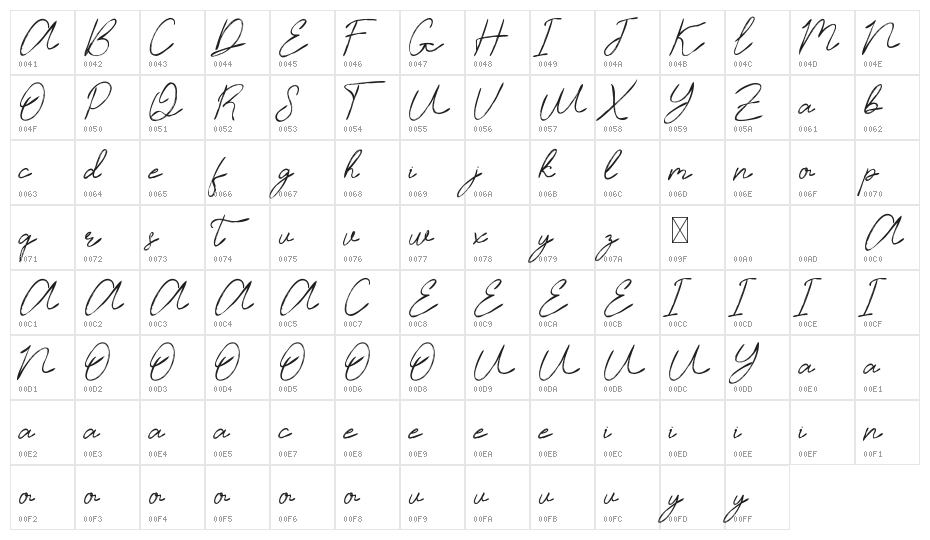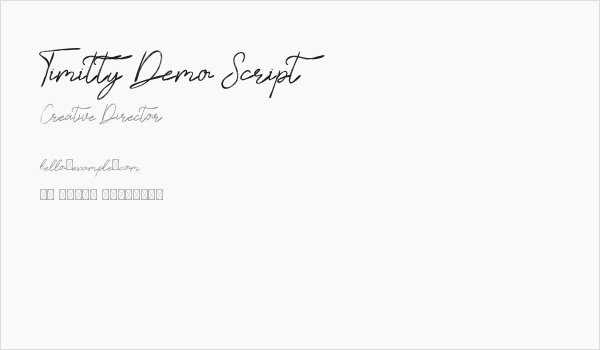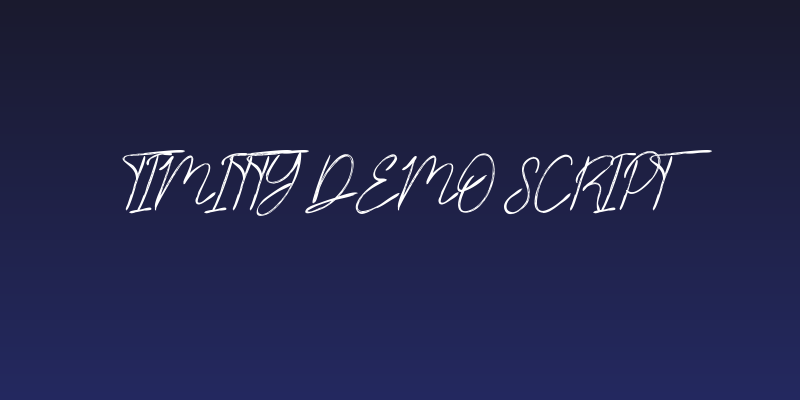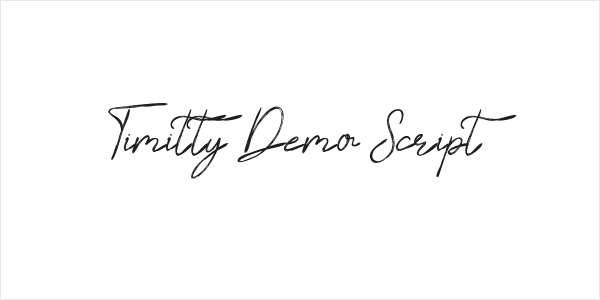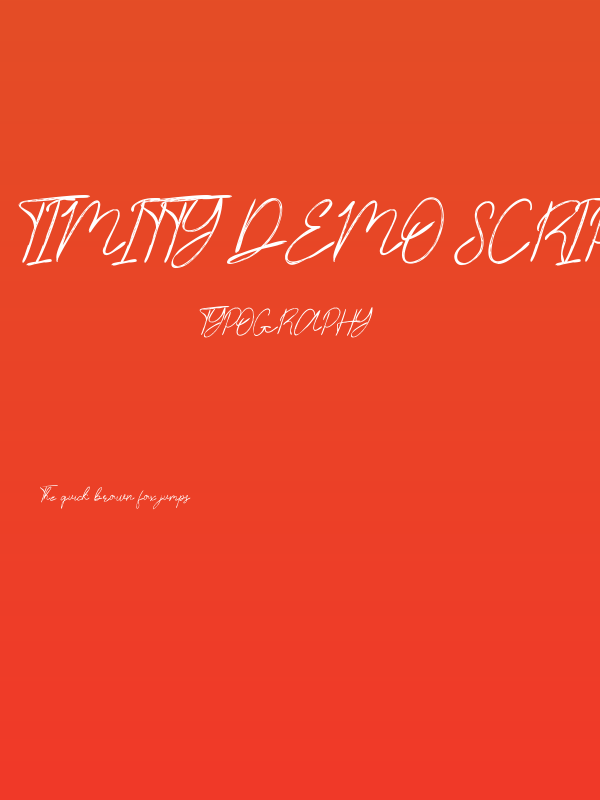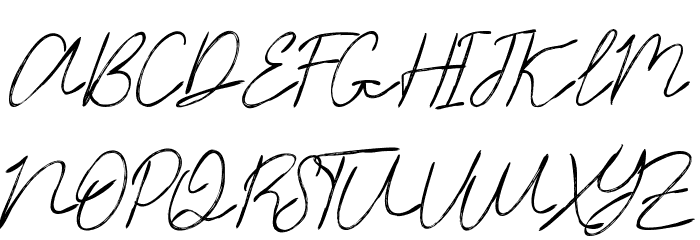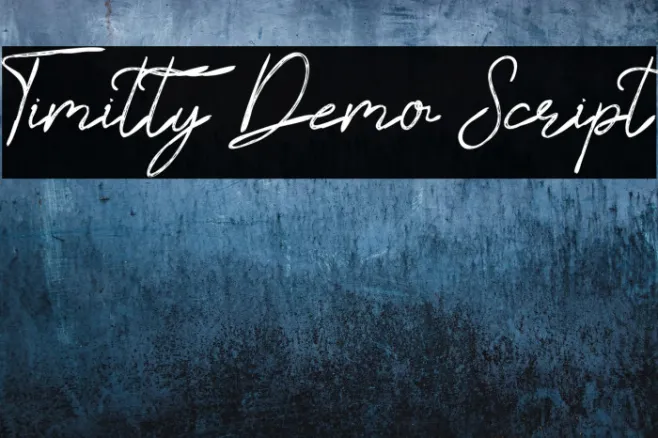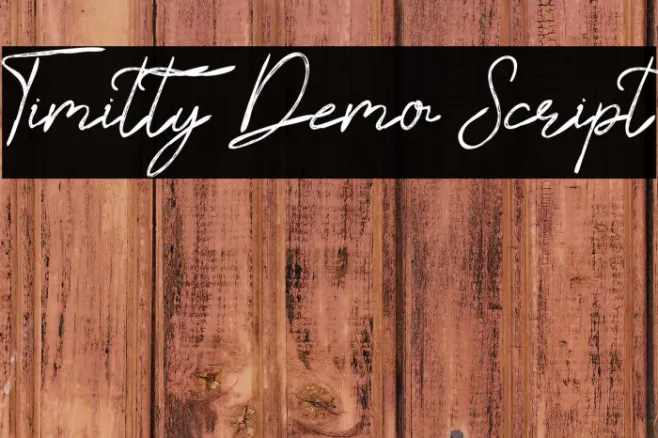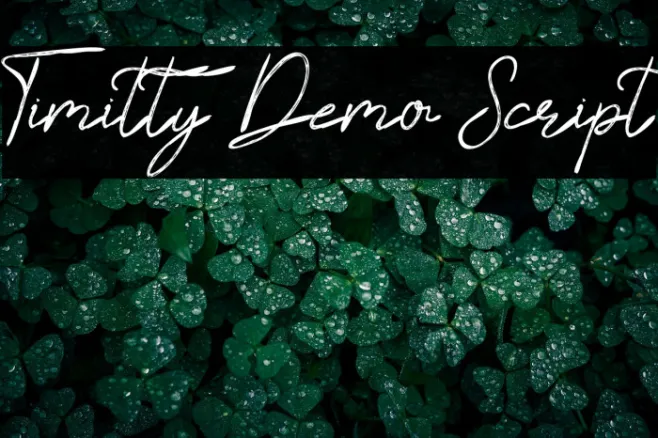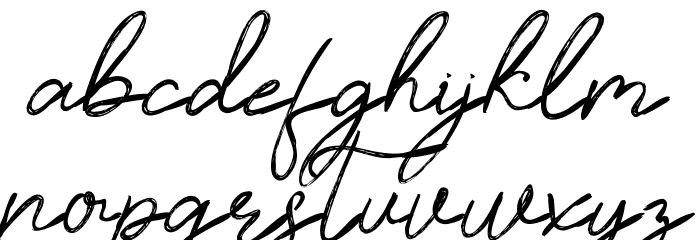
Timitty Demo Script Font
Timitty Demo Script Description
This font features a dynamic and fluid script style, characterized by its elegant and flowing letterforms. The strokes are smooth and continuous, giving it a handwritten appearance that is both sophisticated and approachable. The uppercase letters are bold and slightly slanted, while the lowercase letters maintain a consistent flow with occasional loops and flourishes. The overall design is balanced, with a slight inclination that adds to its graceful aesthetic. This script font is perfect for projects that require a personal touch, such as invitations, greeting cards, and branding materials.